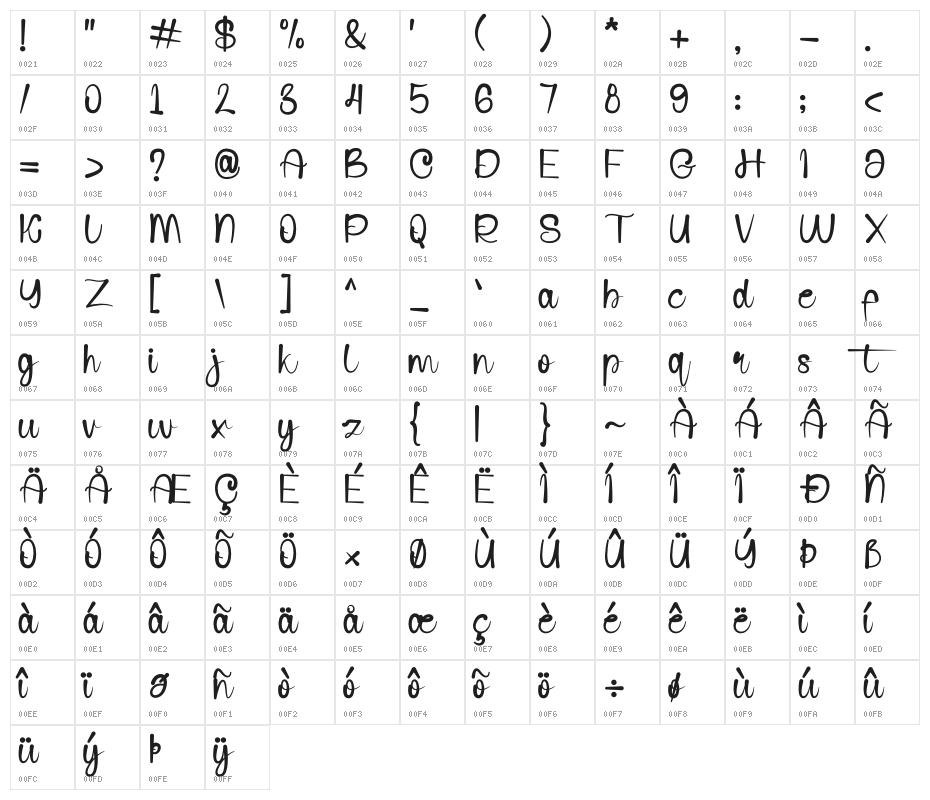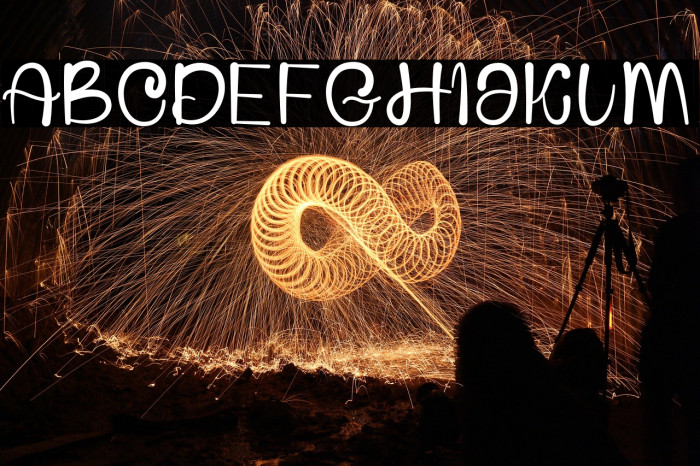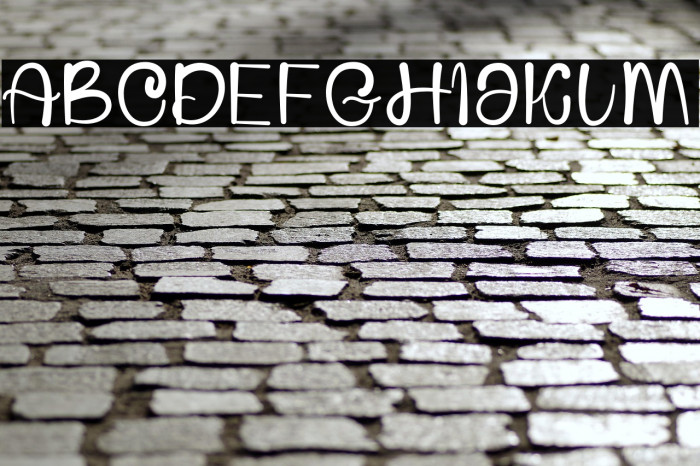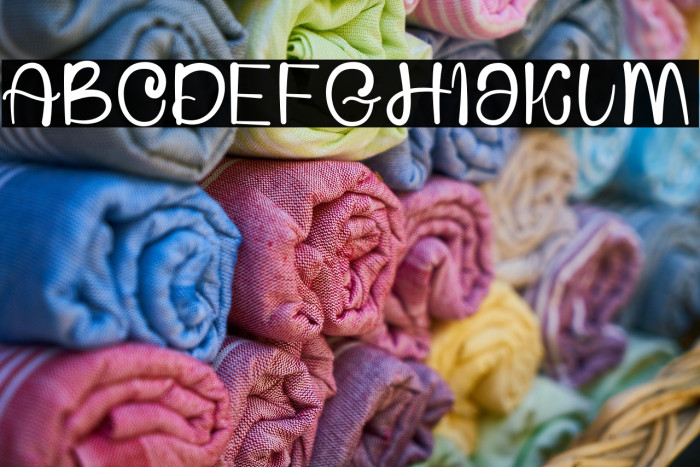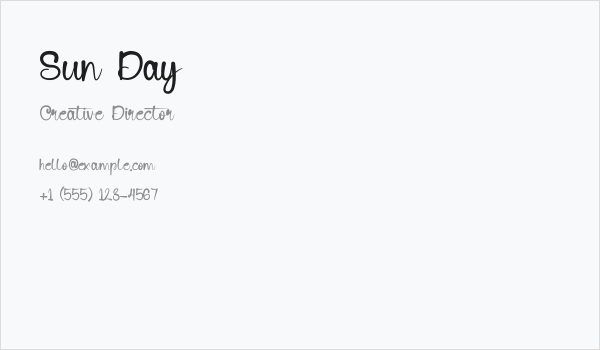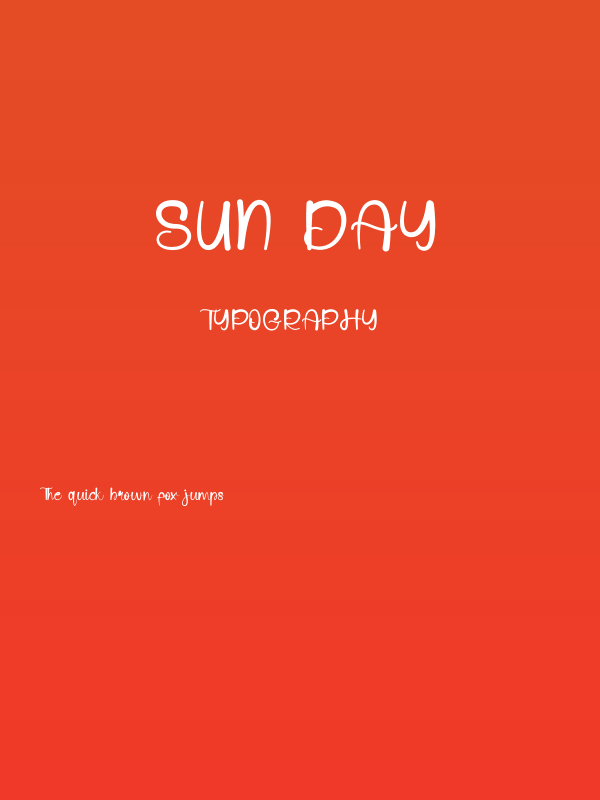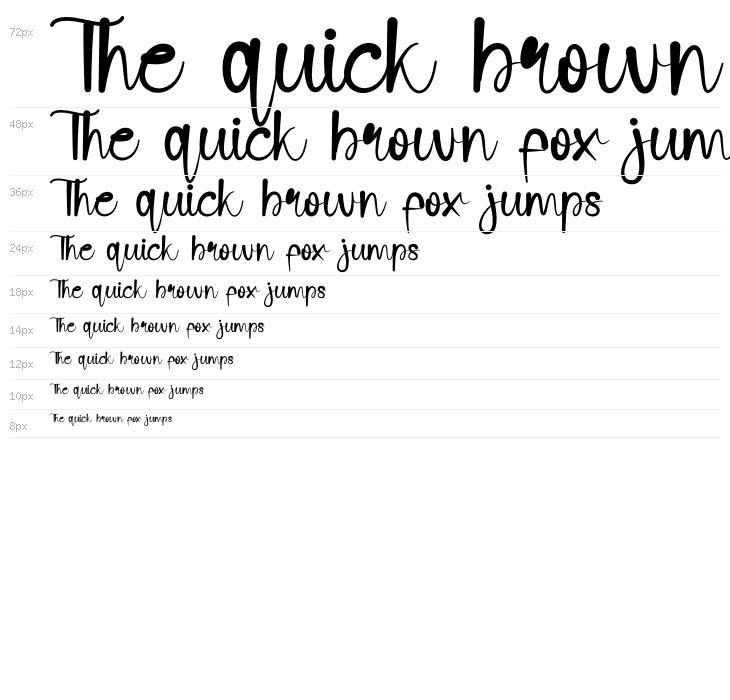
Sun Day Font
Sun Day Description
This font exhibits a playful and casual handwritten style, characterized by its smooth, flowing curves and slightly irregular letterforms. The uppercase letters maintain a consistent height, while the lowercase letters feature varied ascenders and descenders, adding to its informal charm. The numerals are bold and rounded, complementing the overall aesthetic. Special characters are creatively integrated, maintaining the font's whimsical nature. This font's design is approachable and friendly, making it suitable for projects that require a personal touch.